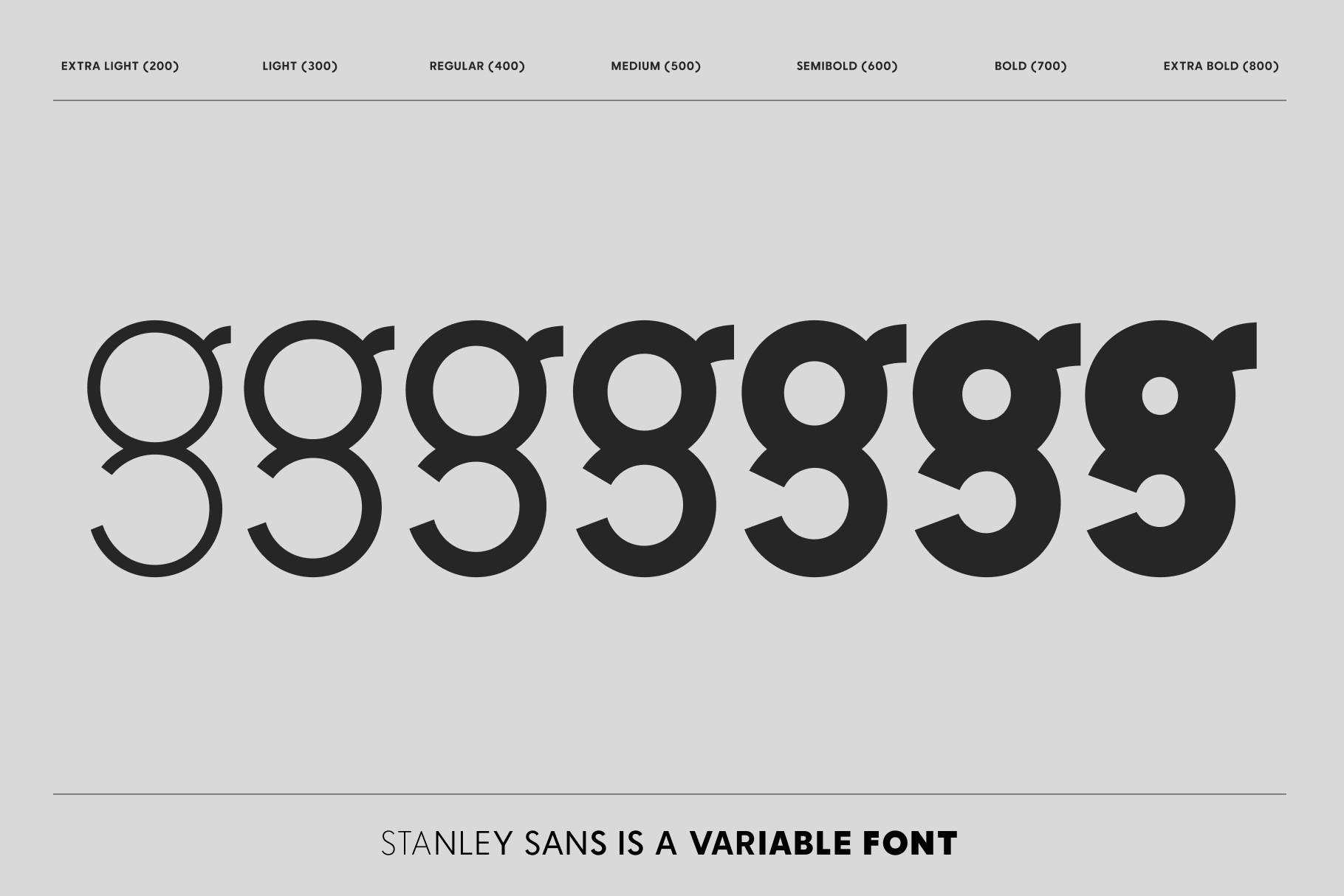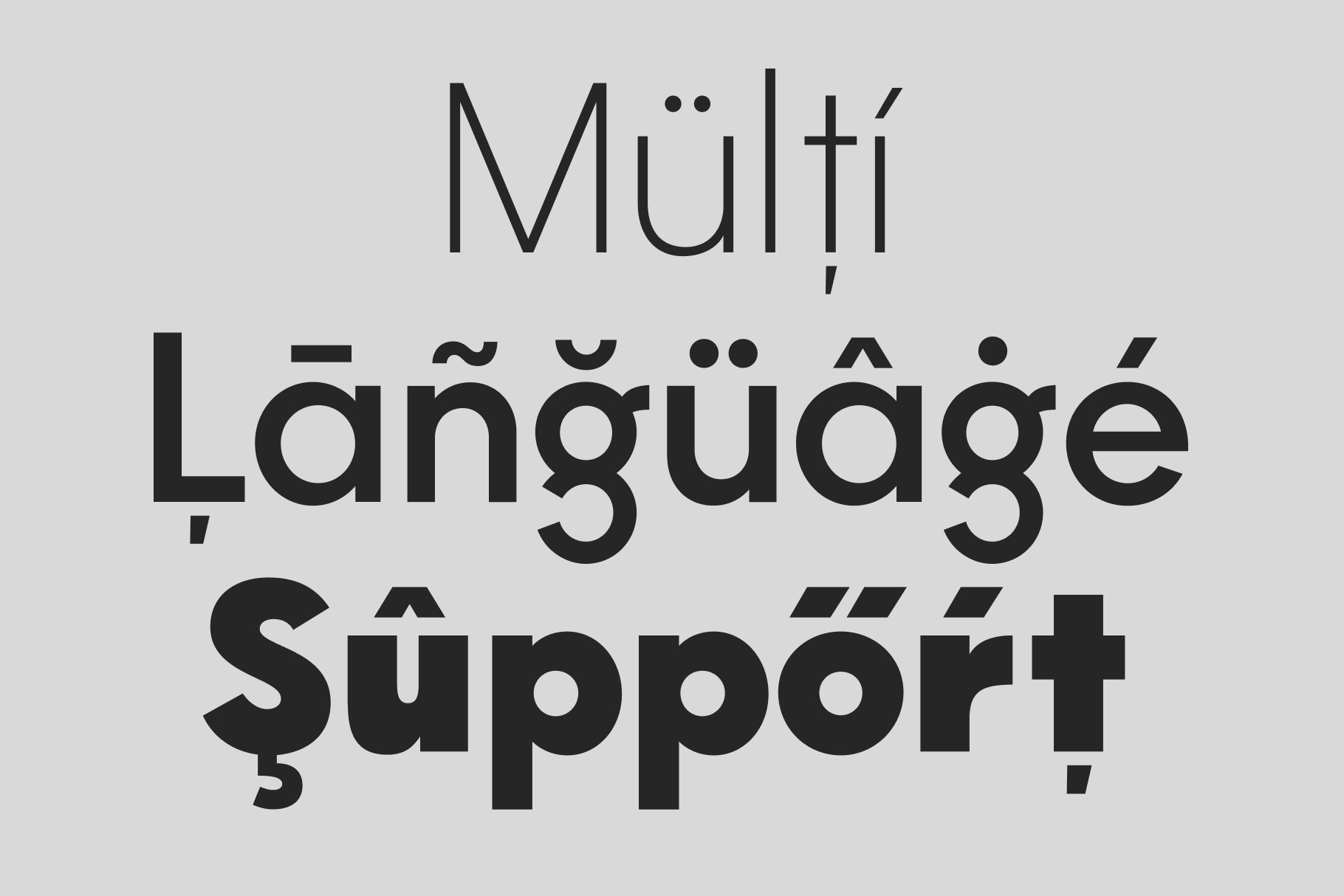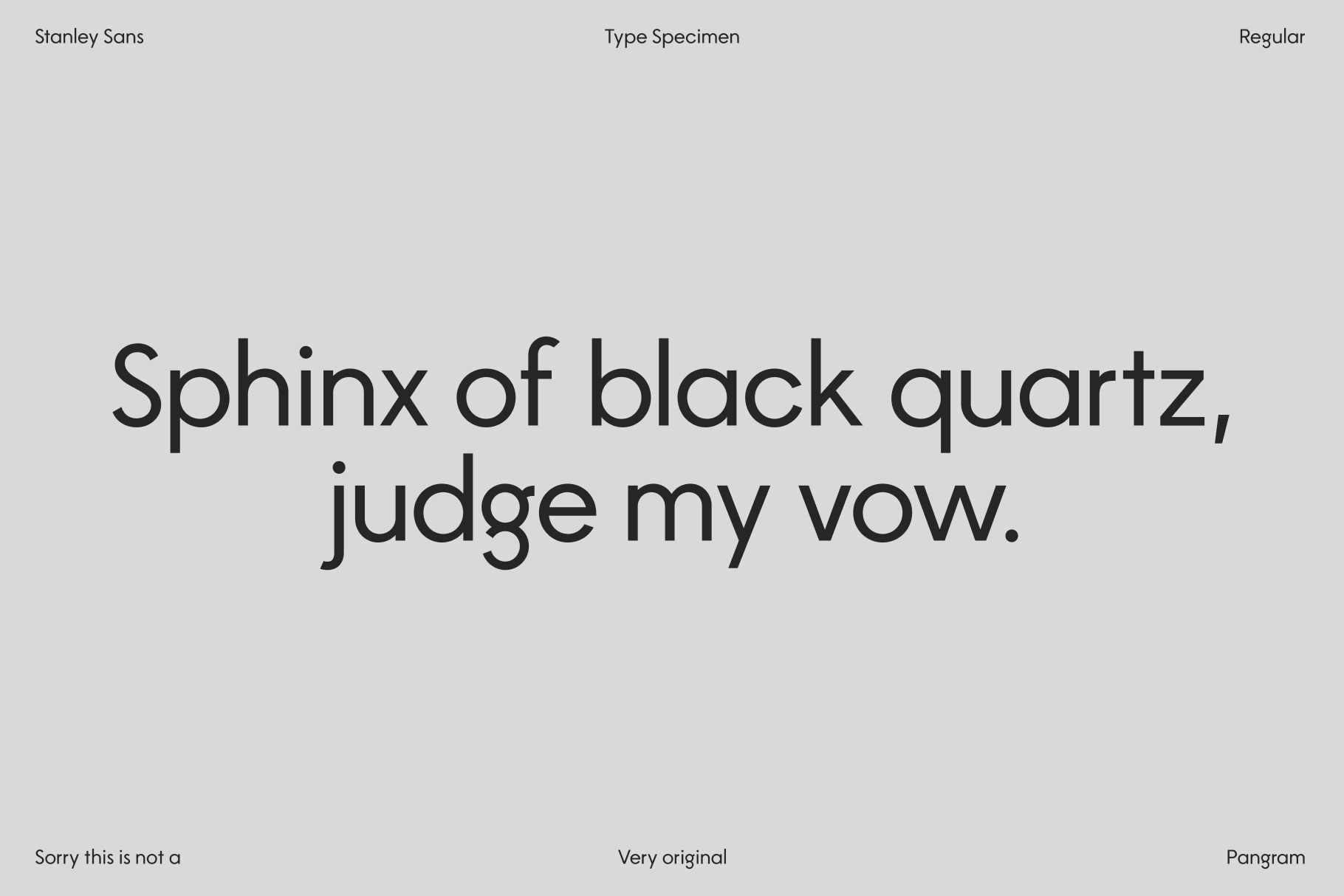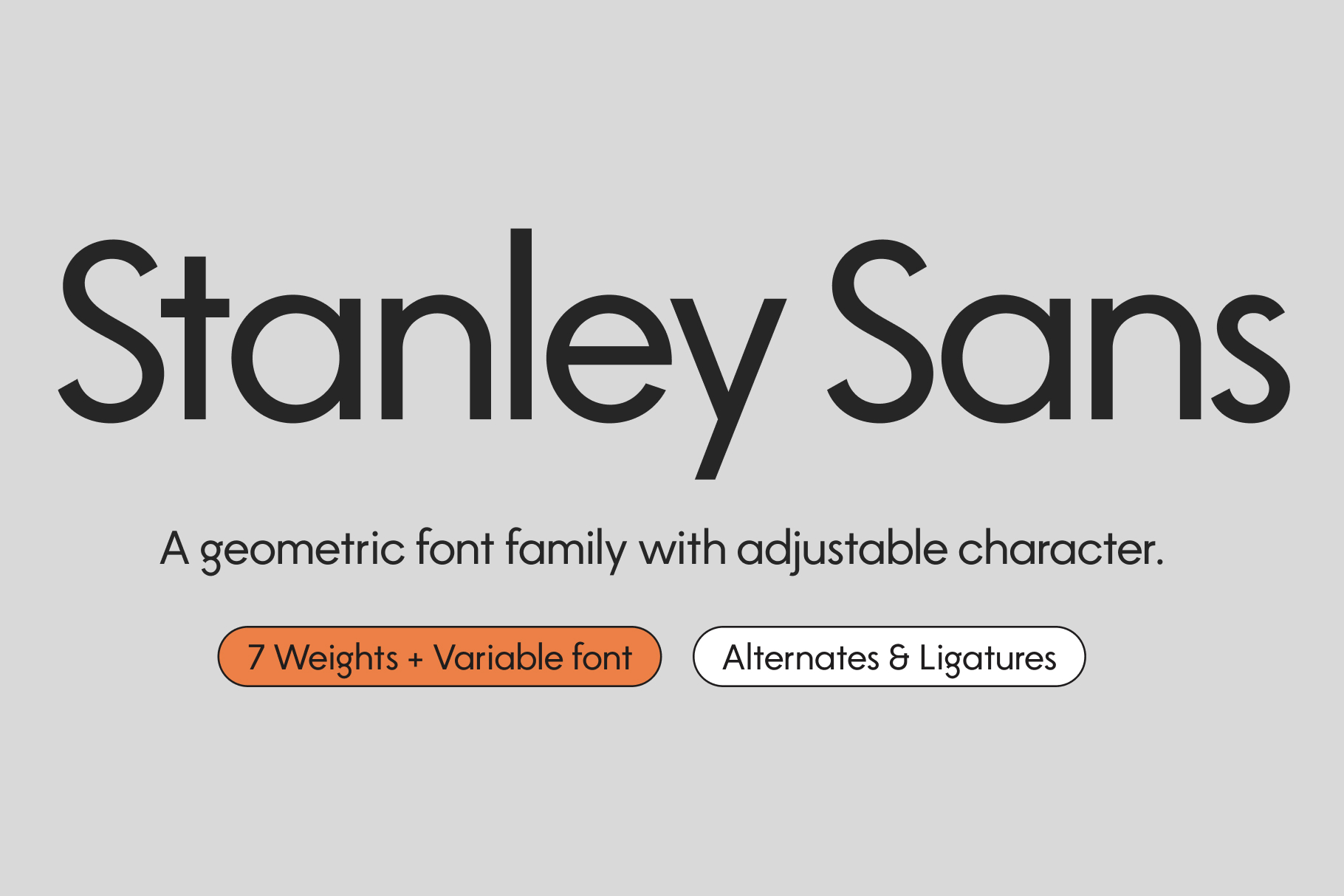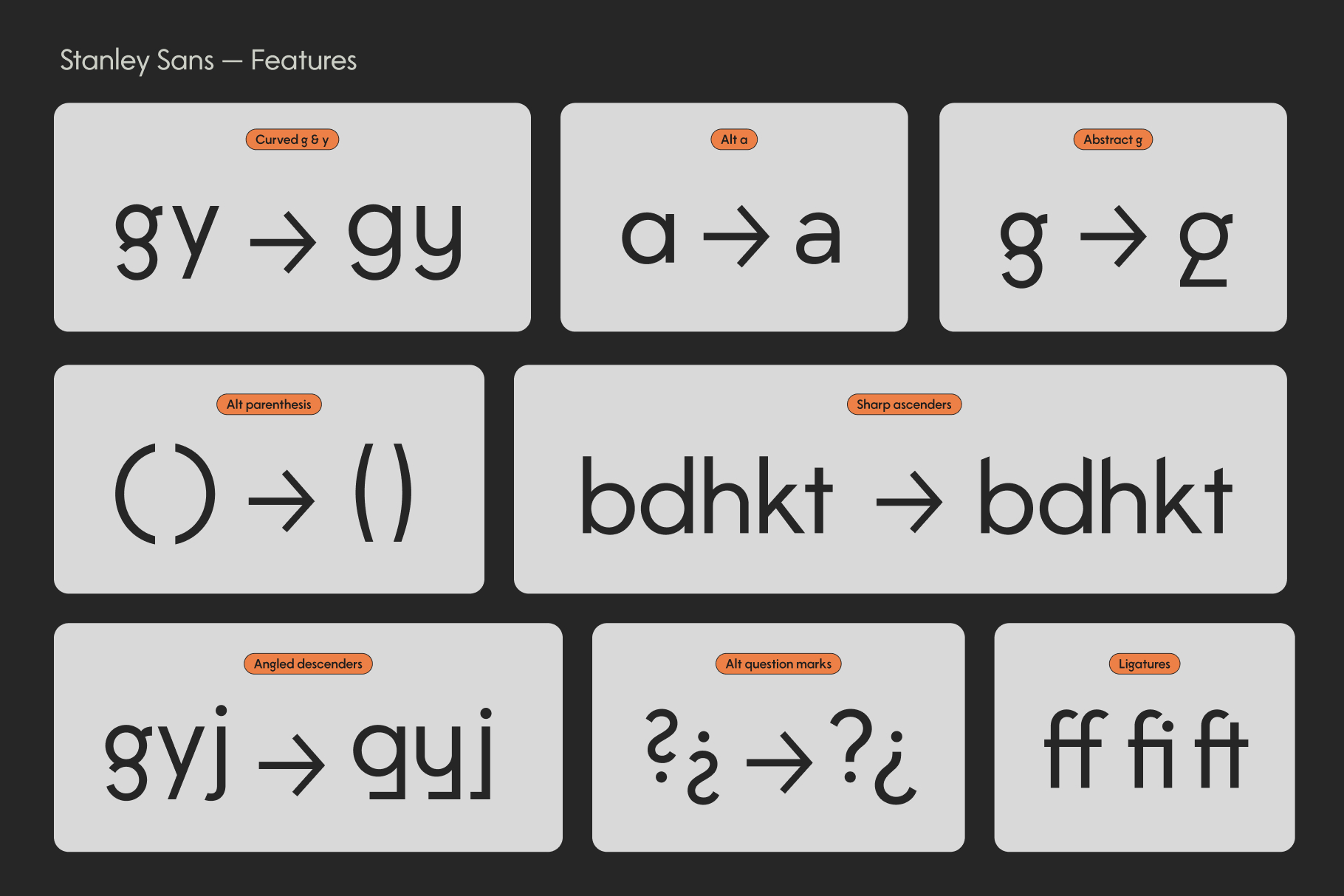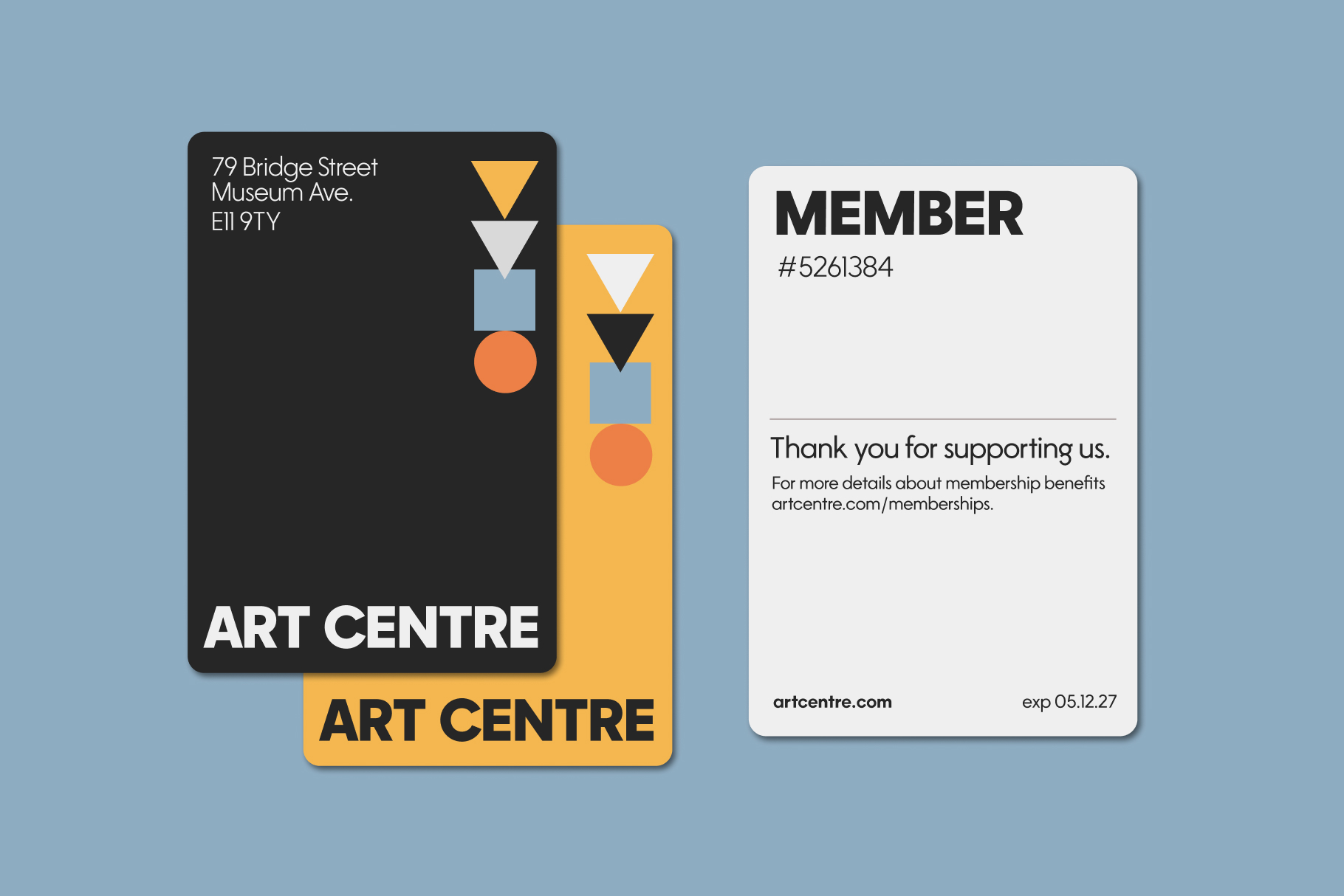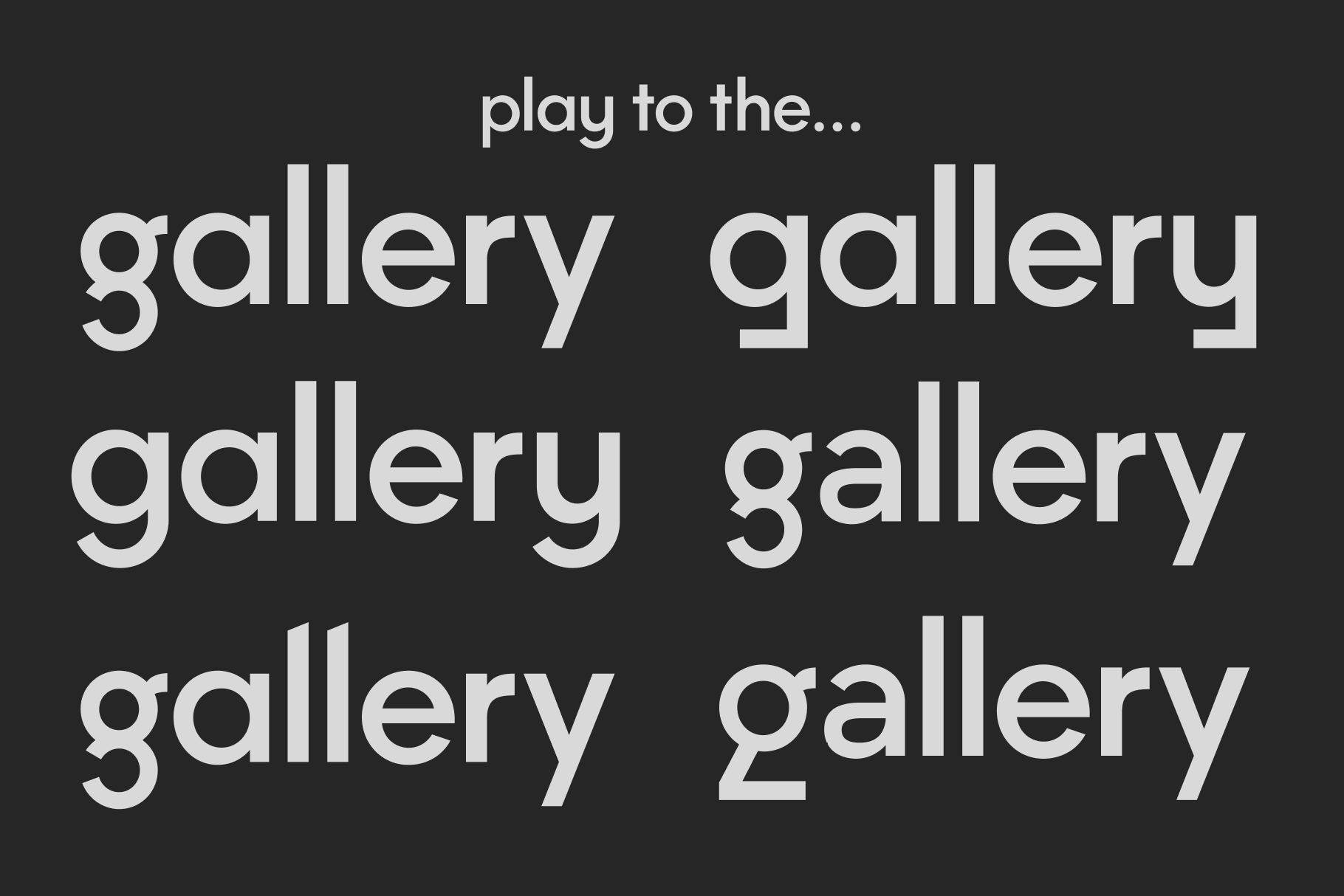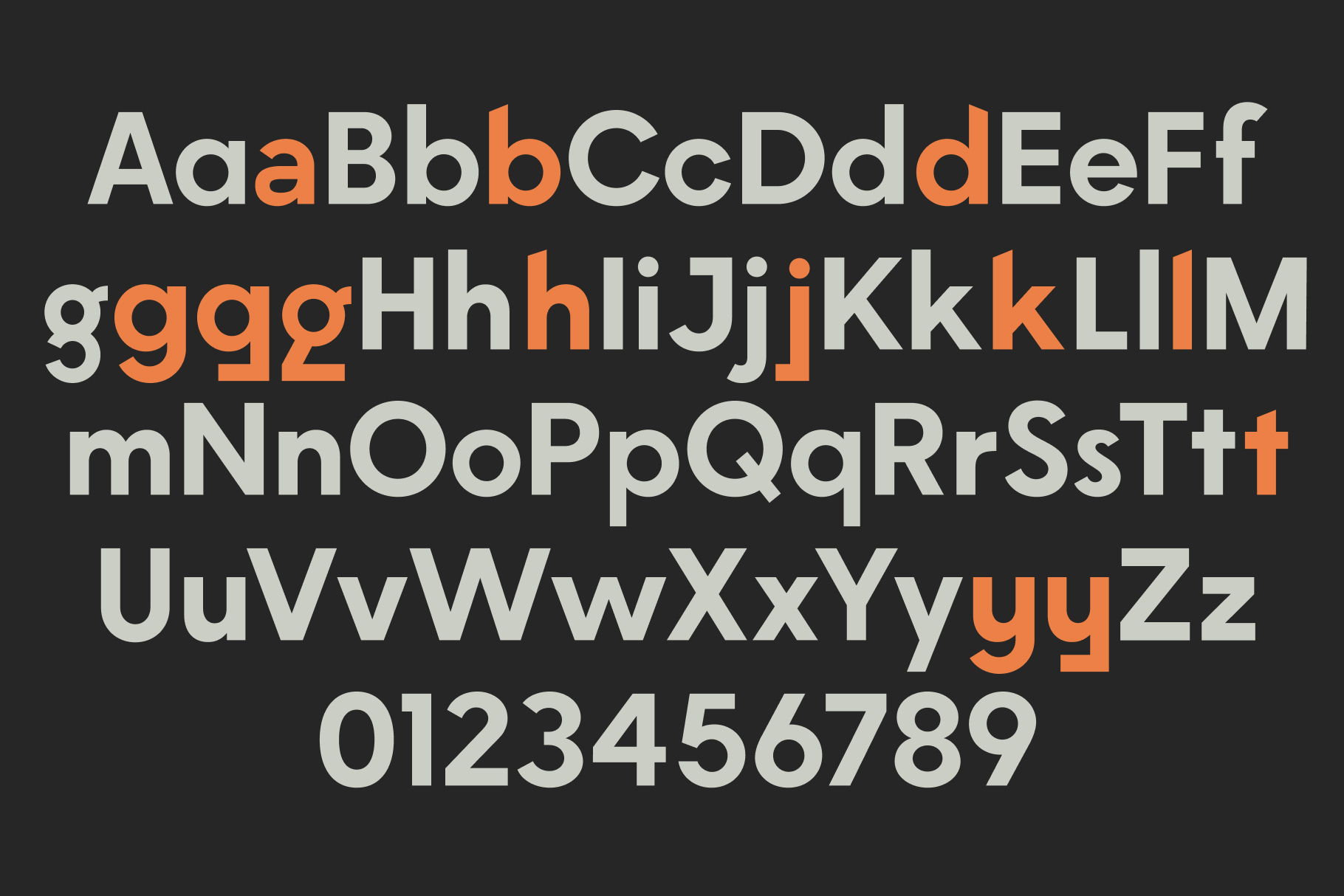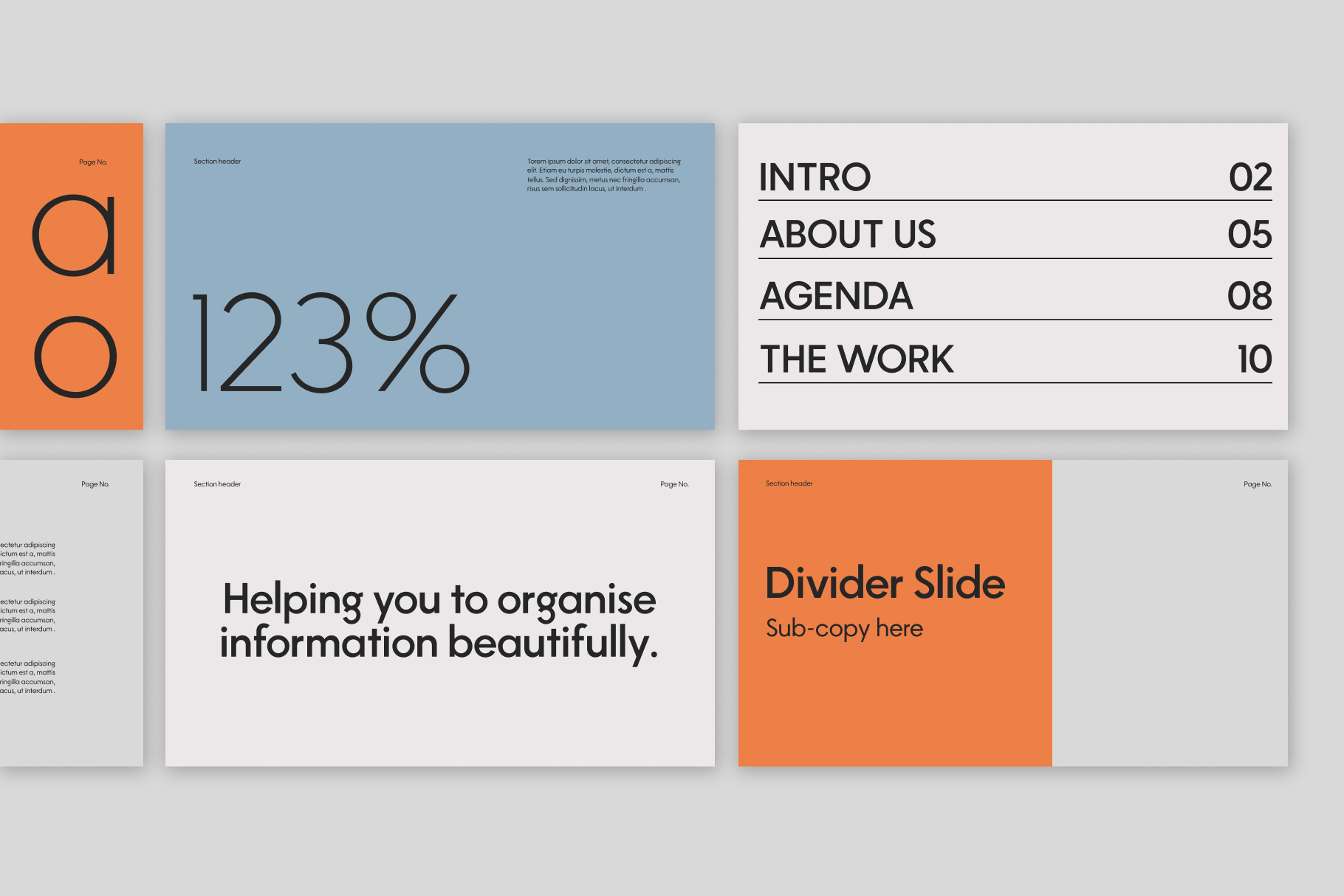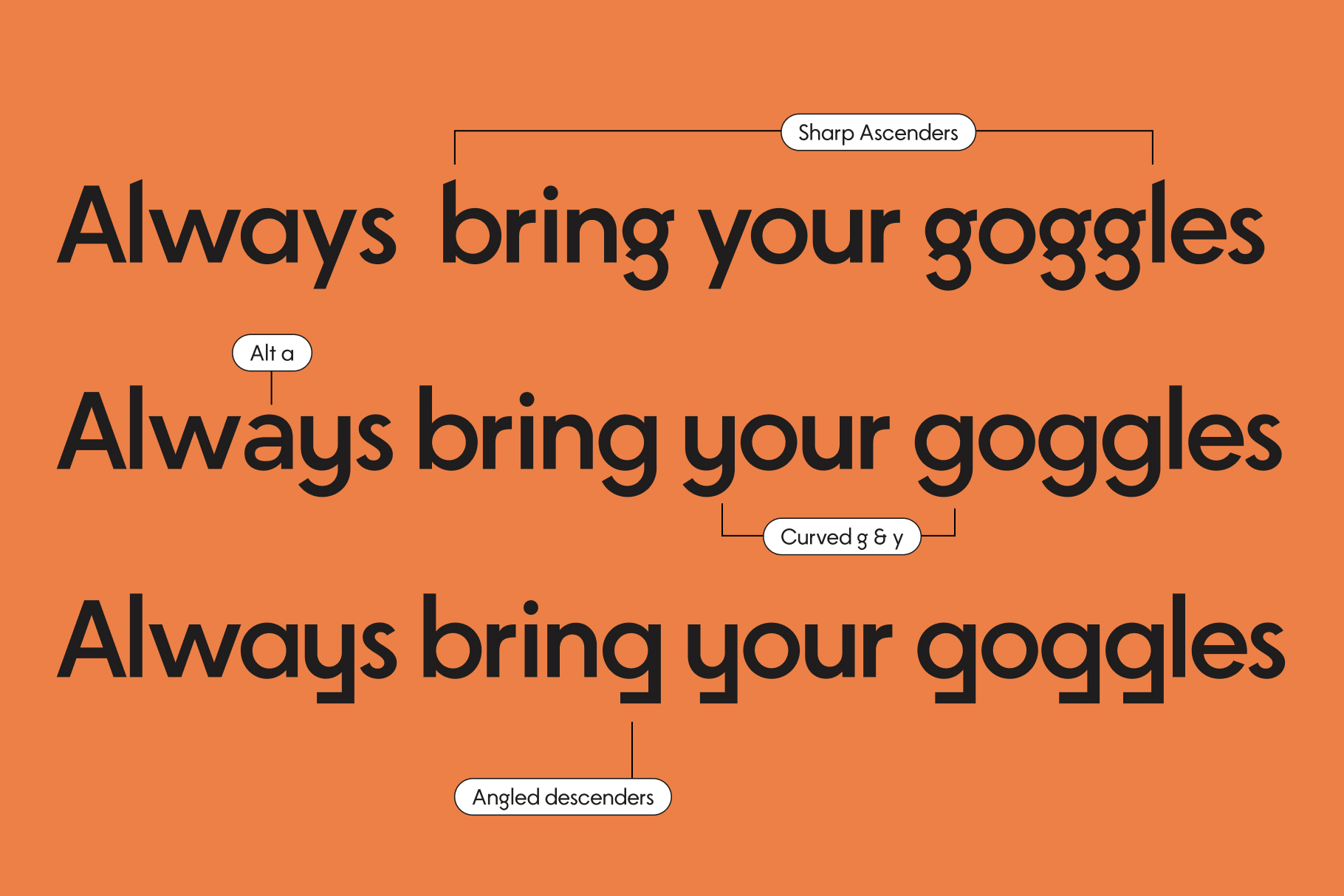
Stanley Sans Family Collection
Stanley Sans
Extra Light Light Regular Medium SemiBold Bold Extra BoldStanley Sans Variable
Aa Aa Aa AaStanley Sans is a versatile variable sans serif family that balances clarity with personality. Through stylistic alternates and variable font technology, it shifts from clean and restrained to more expressive. Available as static and variable font.
Discretionary Ligatures
Standard Ligatures
abstract g
alternate question marks
angled descenders
curved g & y
double-story a
narrow parenthesis
sharp ascenders